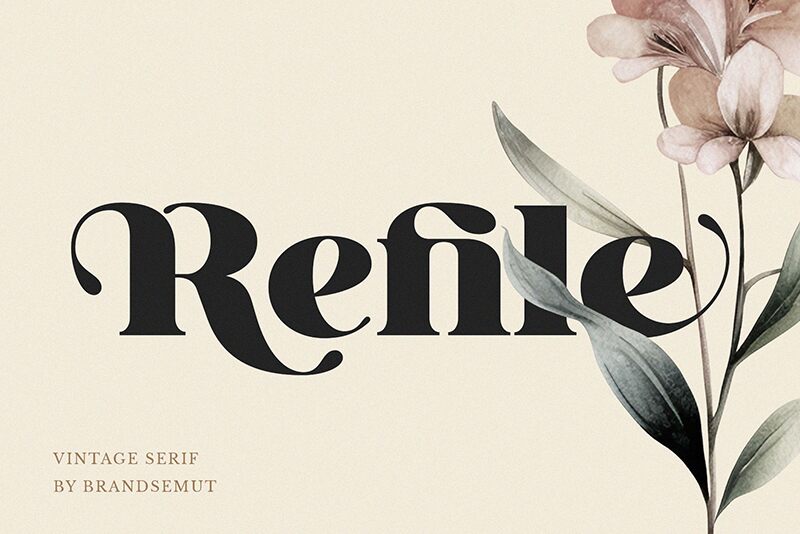
Refile
Refile font is splendid new serif typeface from BrandSemut, featuring an elegant and bold classic style that looks both modern and timeless. Every letter in this elegant font boasts sophistication with fine details visible all over the letters’ edges and ends.
If on the search for your own brand logo, headlines, labels, titles, or quotes designs; try this refined free serif font. An all-caps touch will make an enormous improvement in posters, magazines covers or movie posters. Regardless of platforms (print or digital), Refile’s results will definitely impress you given how versatile it is when it comes to using it.